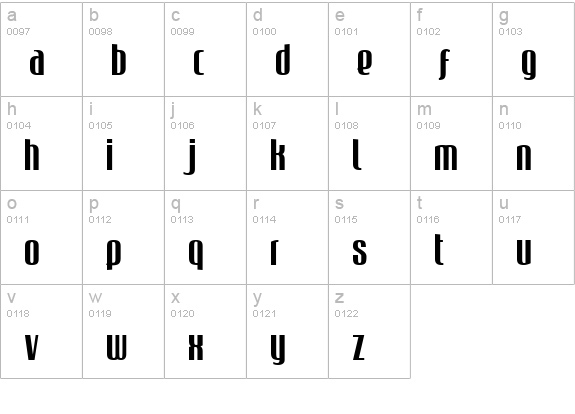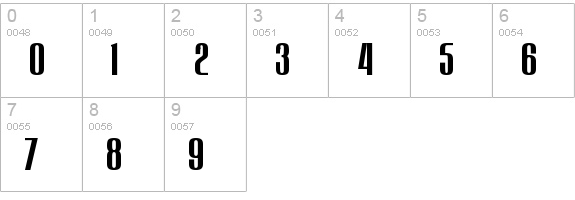
Mabella Font Details
Introducing Mabella - a mesmerizing typeface that effortlessly combines elegance with a touch of whimsy. This enchanting font captures the essence of sophistication, making it the perfect choice for any design project that seeks to exude beauty and grace. With its delicate curves and graceful strokes, Mabella offers a timeless appeal that is both classic and modern. Its clean and legible letterforms make it versatile and suitable for a wide range of applications, from branding and advertising to editorial and packaging design. But what truly sets Mabella apart is its accessibility. Unlike many premium fonts, Mabella is freely available to download at FontsMarket.com. This means that designers and creatives from all walks of life can easily access and utilize this stunning typeface in their projects, without any financial constraints. Whether you're a seasoned professional or just starting out on your design journey, Mabella empowers you to create captivating visuals that leave a lasting impression. Its wide range of weights and styles offer endless possibilities for customization, allowing you to tailor your designs to perfectly suit your vision. So why wait? Discover the beauty and versatility of Mabella today. Download this exquisite font for free at FontsMarket.com and unlock a world of creative possibilities that will elevate your designs to new heights.